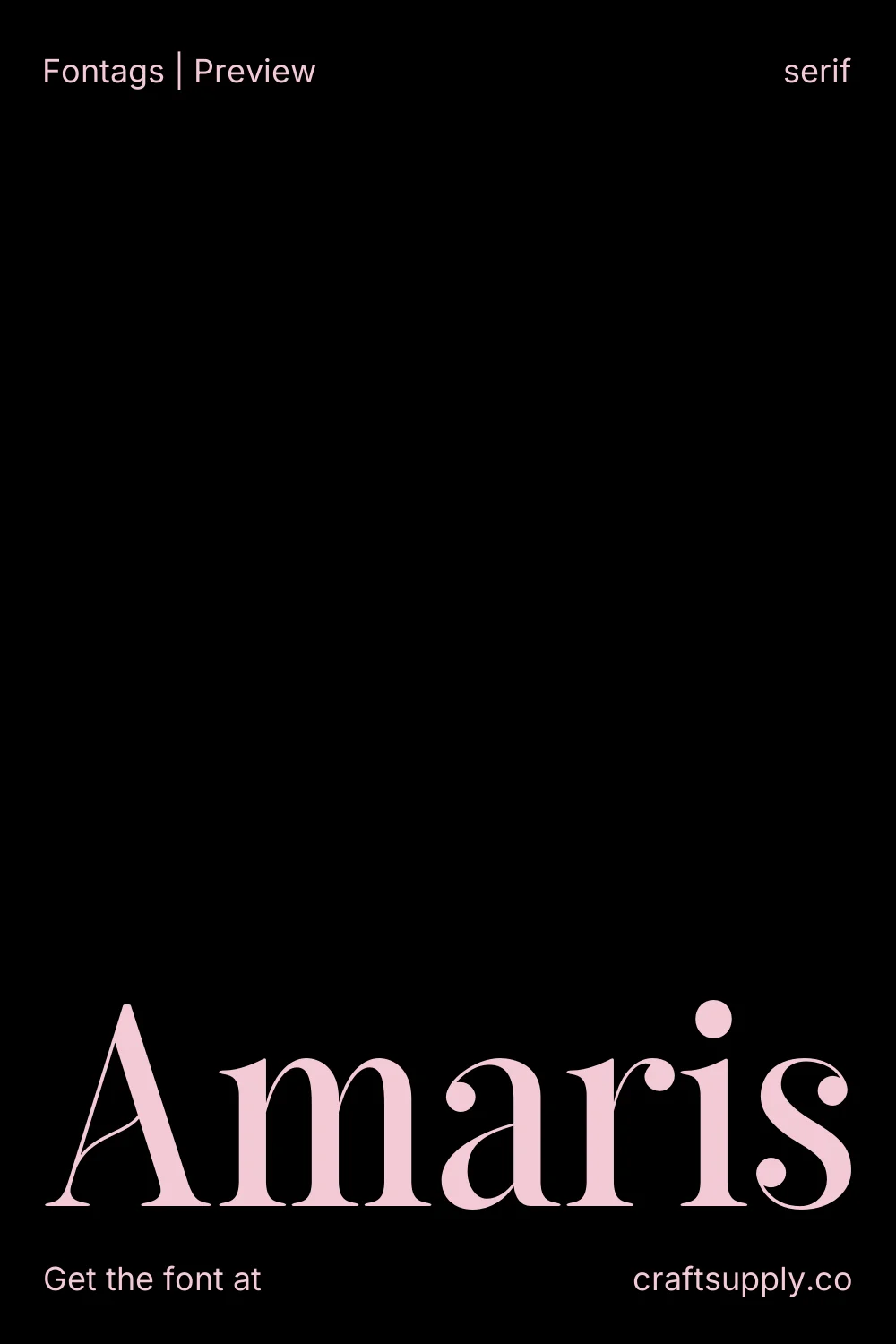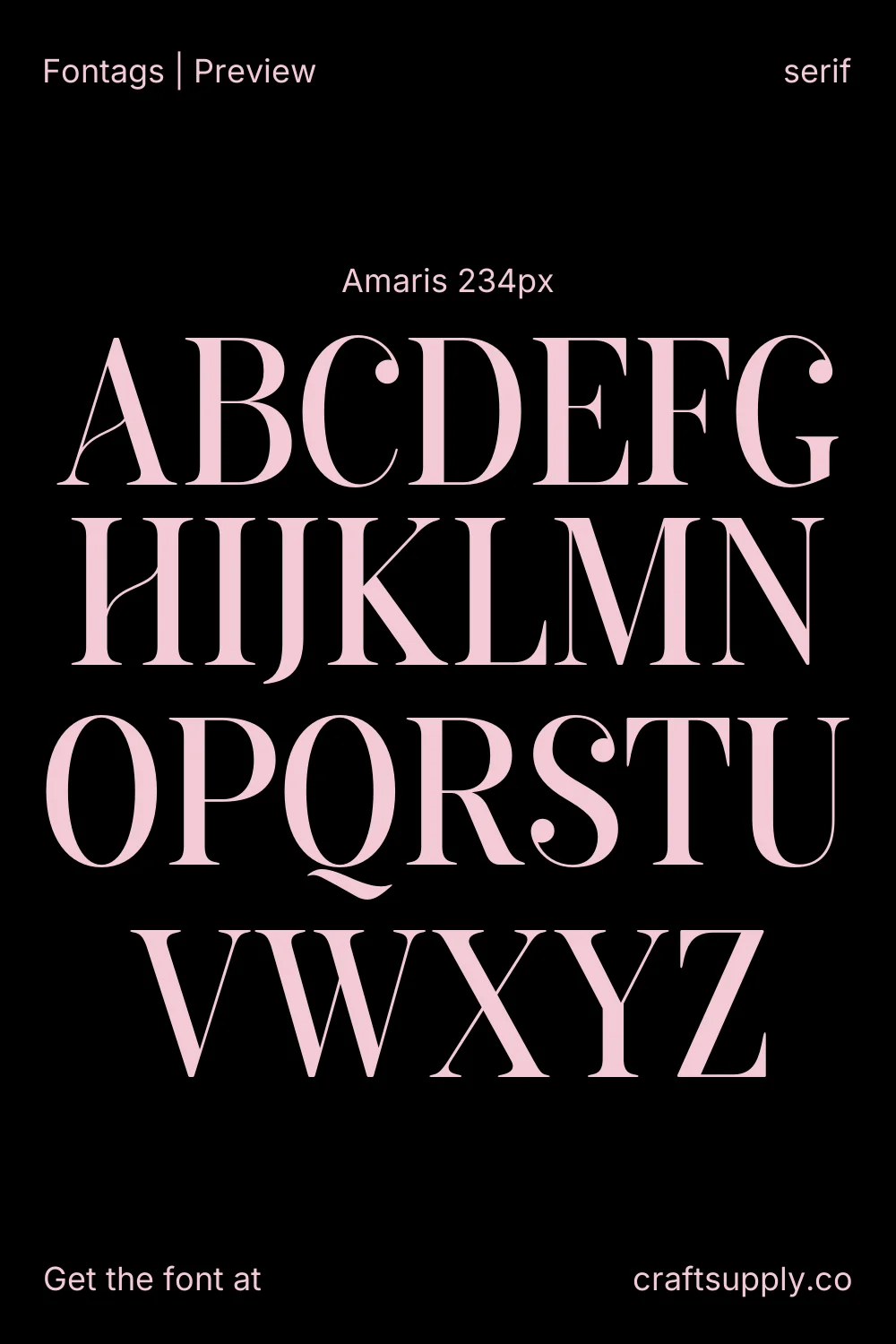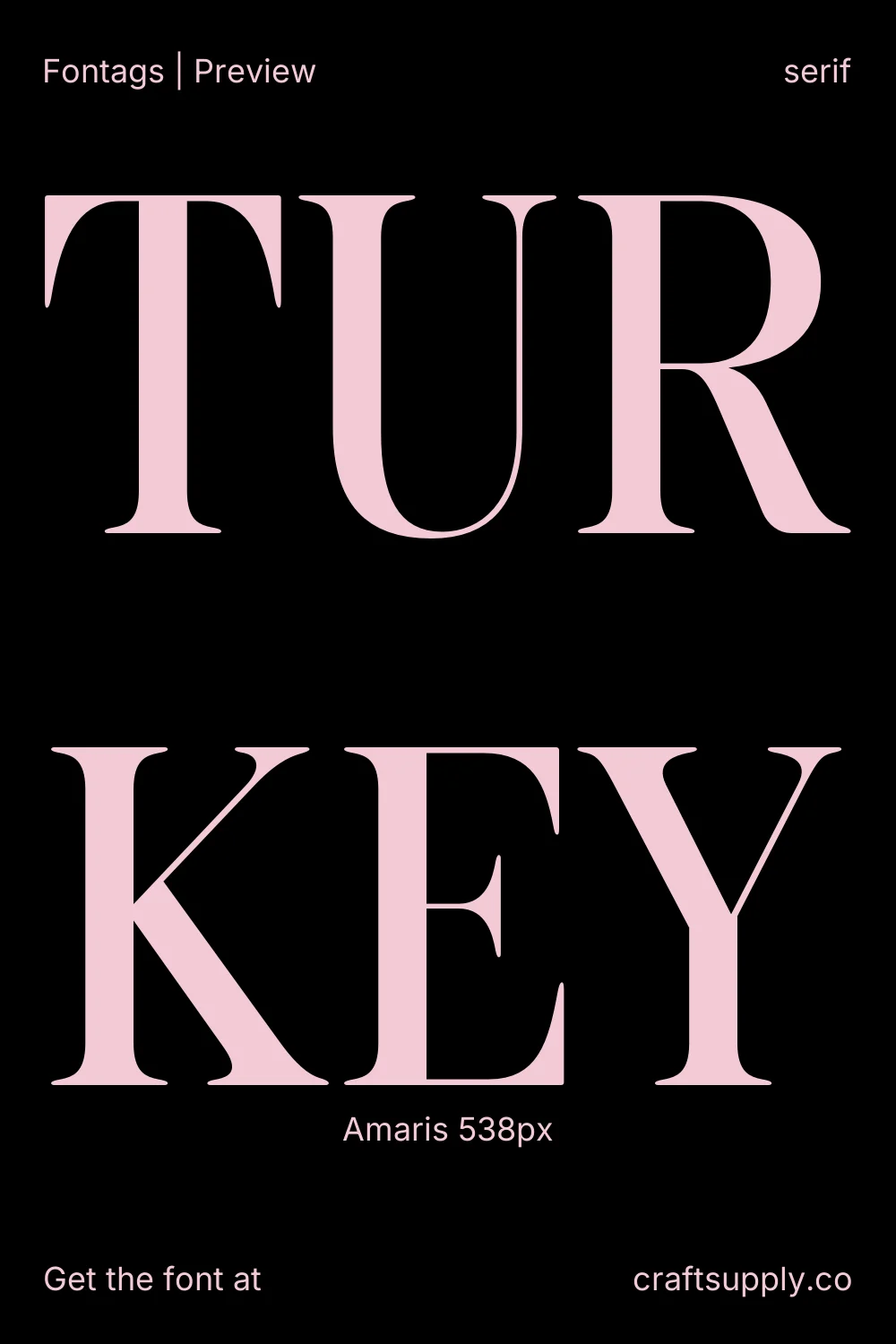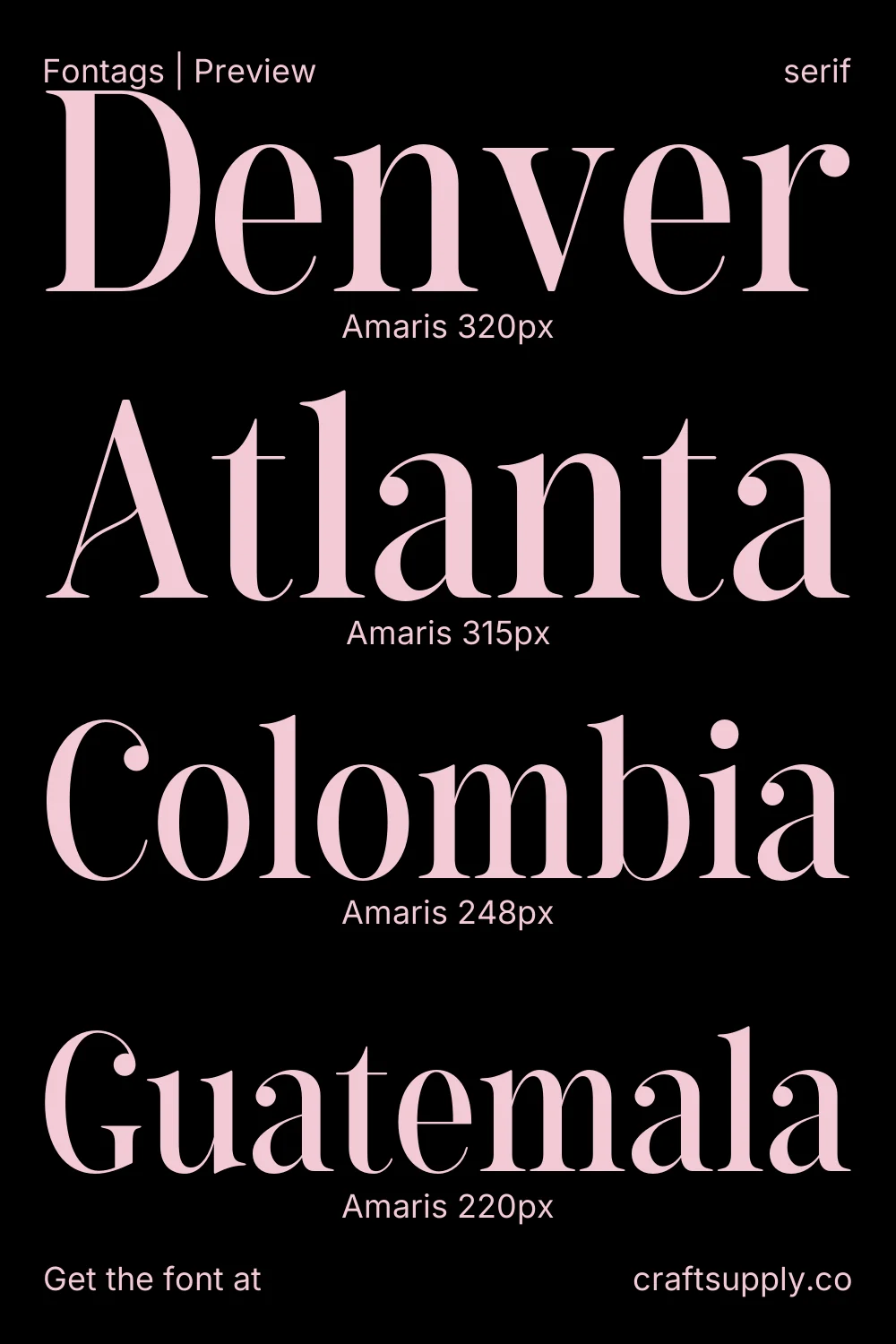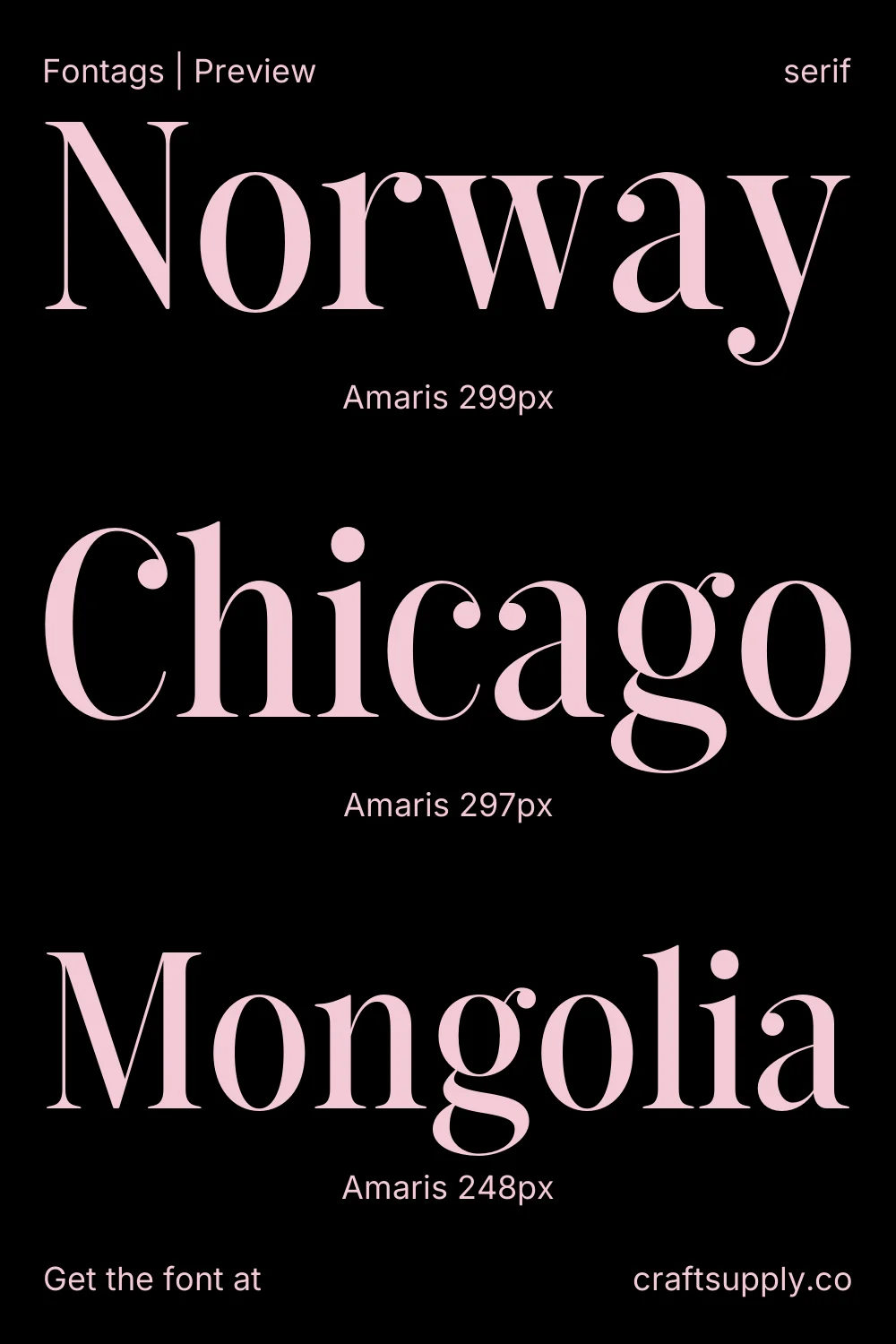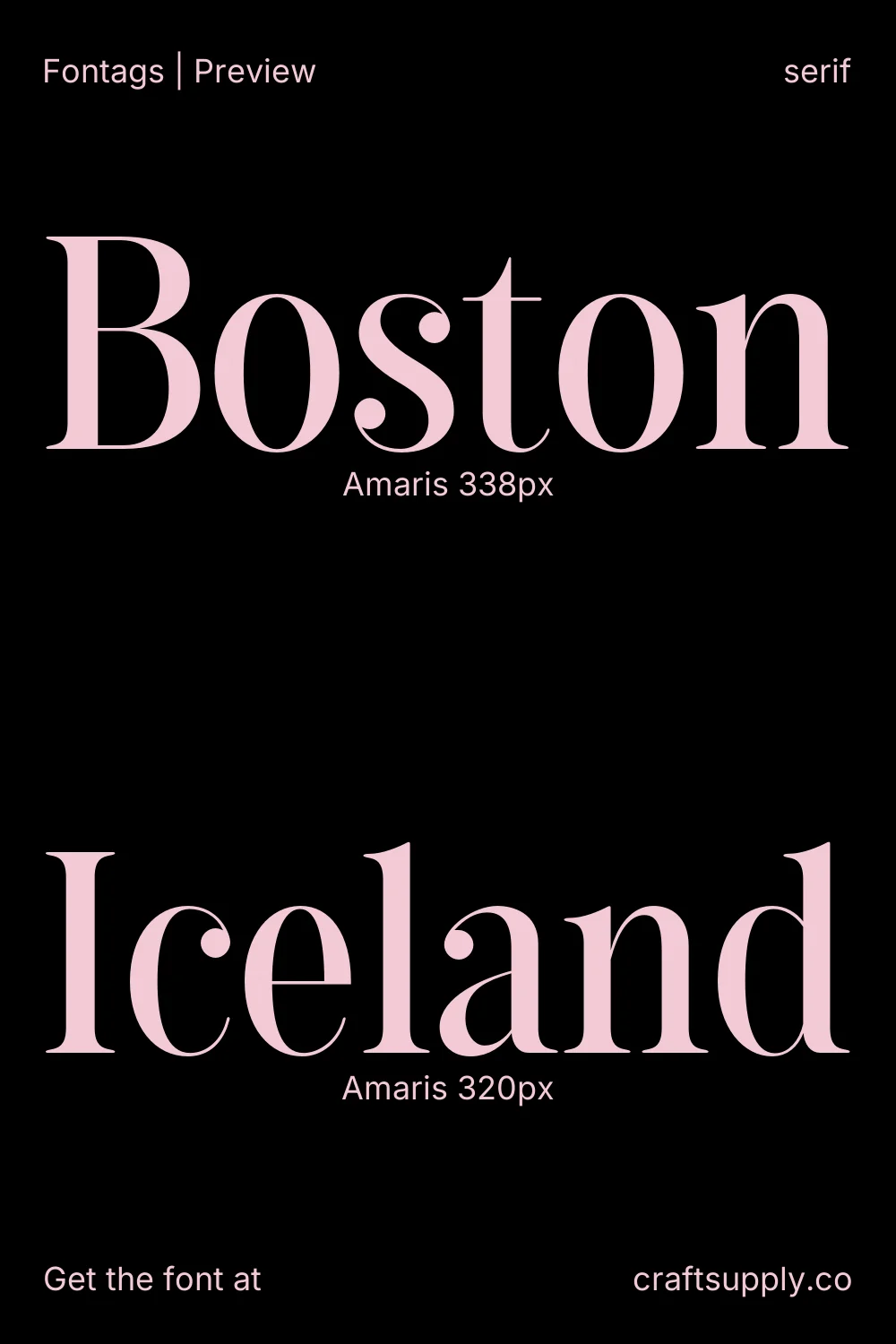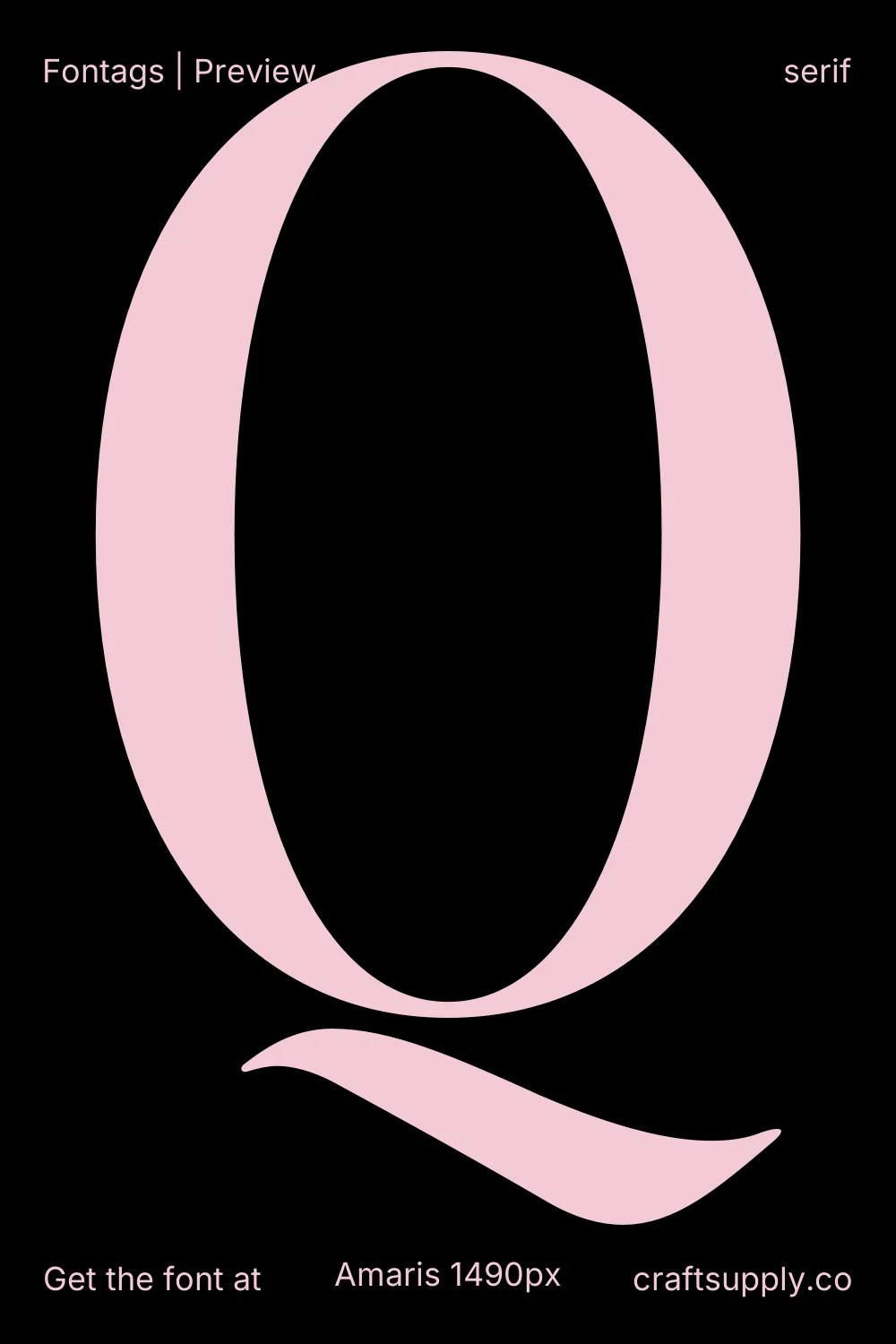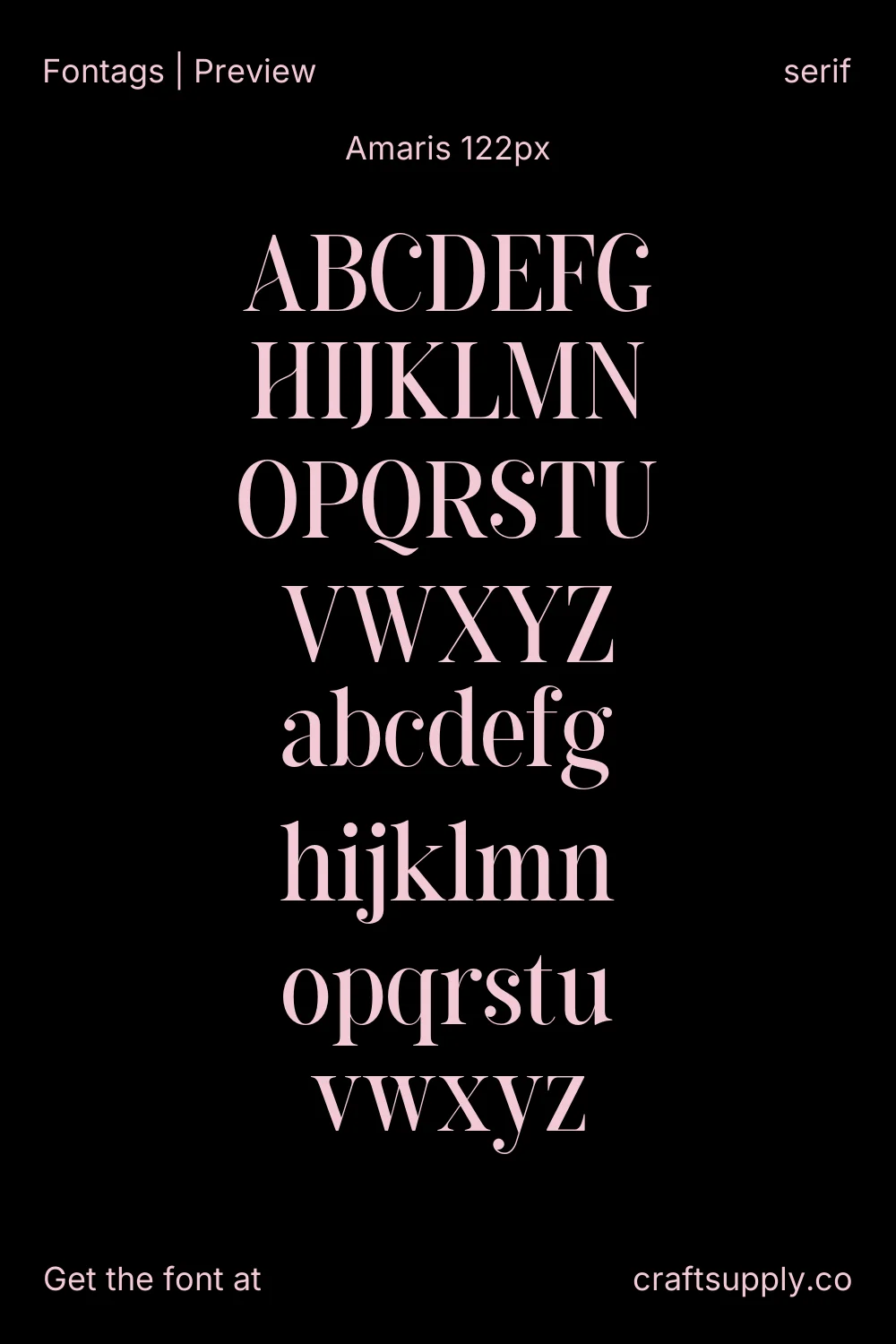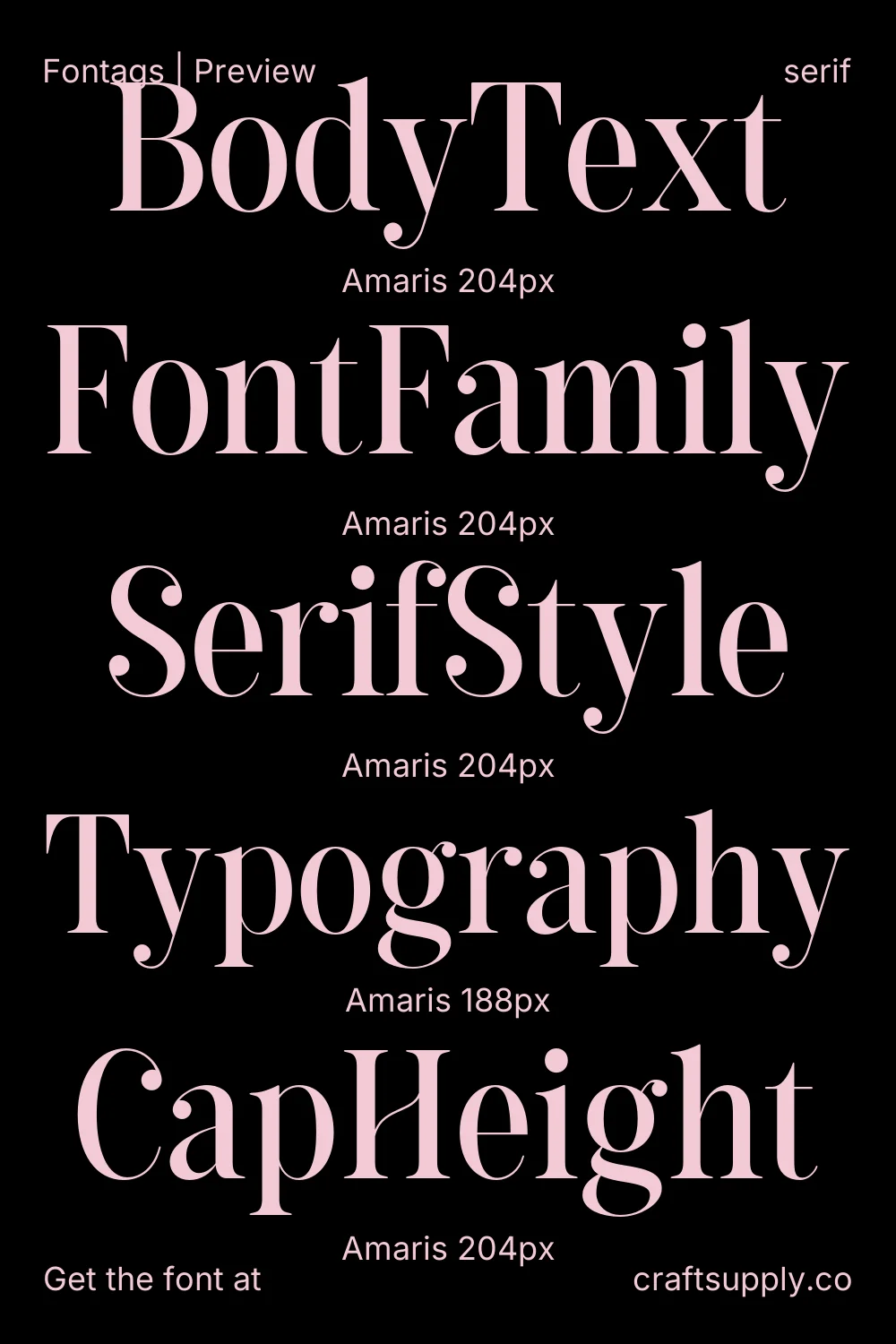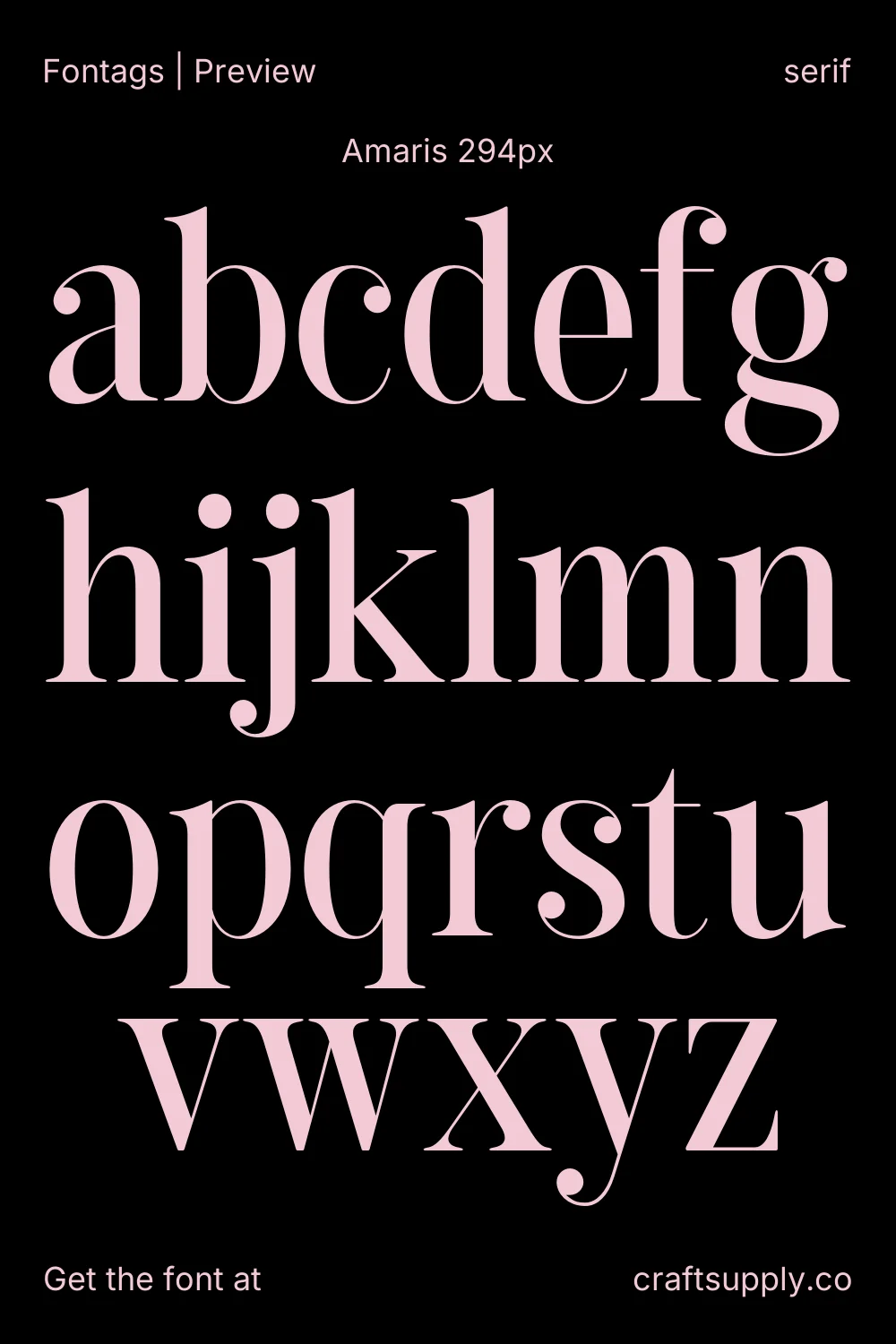
Amaris
Amaris is a nostalgic serif typeface with high contrast between thick and thin strokes and traditional letterforms. It evokes elegance, sophistication, and tradition, making it ideal for formal designs, branding, greeting cards, packaging, and vintage-inspired projects. This versatile font includes both Regular and Italic styles.